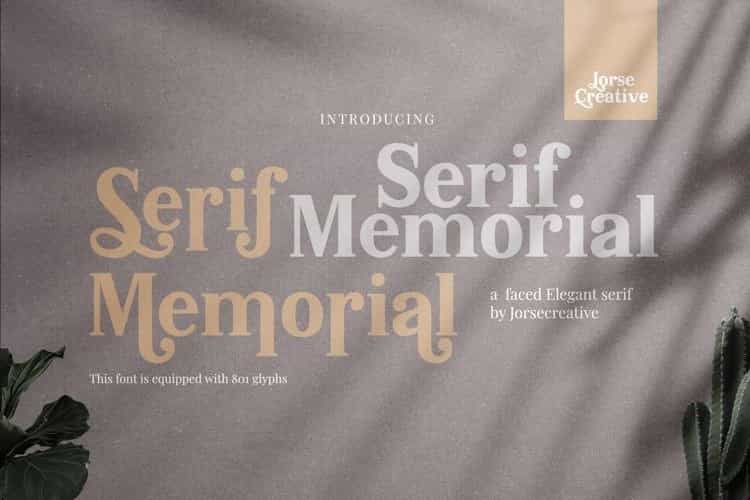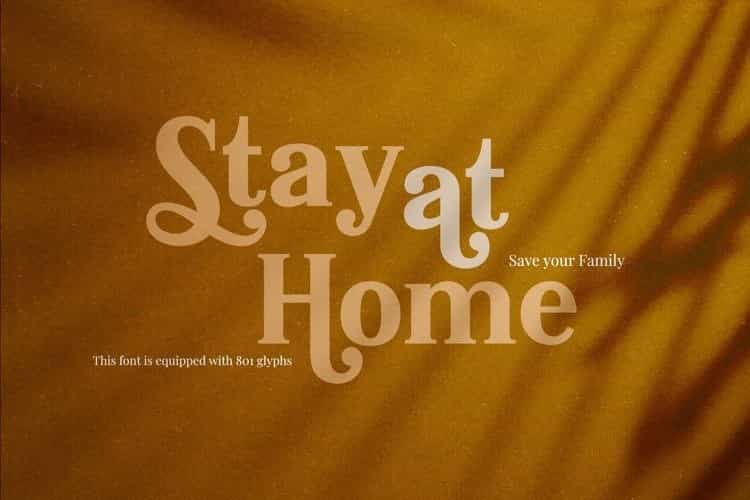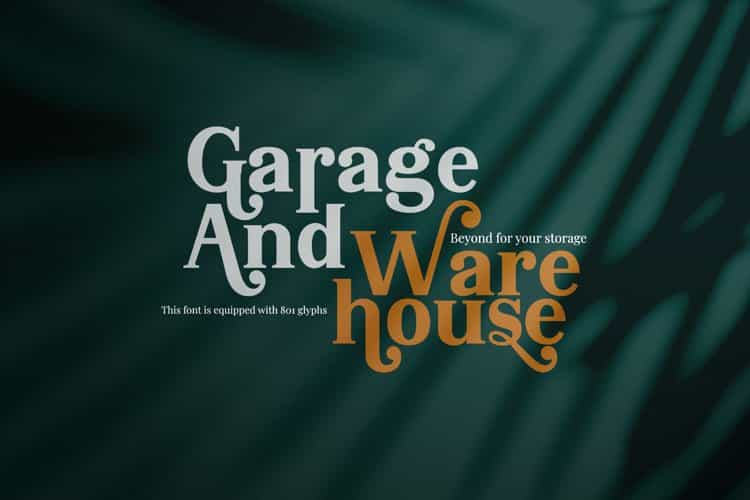
Discover Serif Memorial Serif Font, part of the Serif collection—a versatile and unique font perfect for adding a personal touch to your projects. Download it for free and enjoy crafting designs with style, from invitations to social media posts. This font is available exclusively for personal use, giving you the freedom to create without limits. Unlock your creativity with Serif Memorial Serif Font today!
Serif Memorial is a stylish serif font that features 801 glyphs, including both uppercase and lowercase letters. It works well for promoting content, on media. Is equally stunning when used in magazines, brochures, trademarks and more.